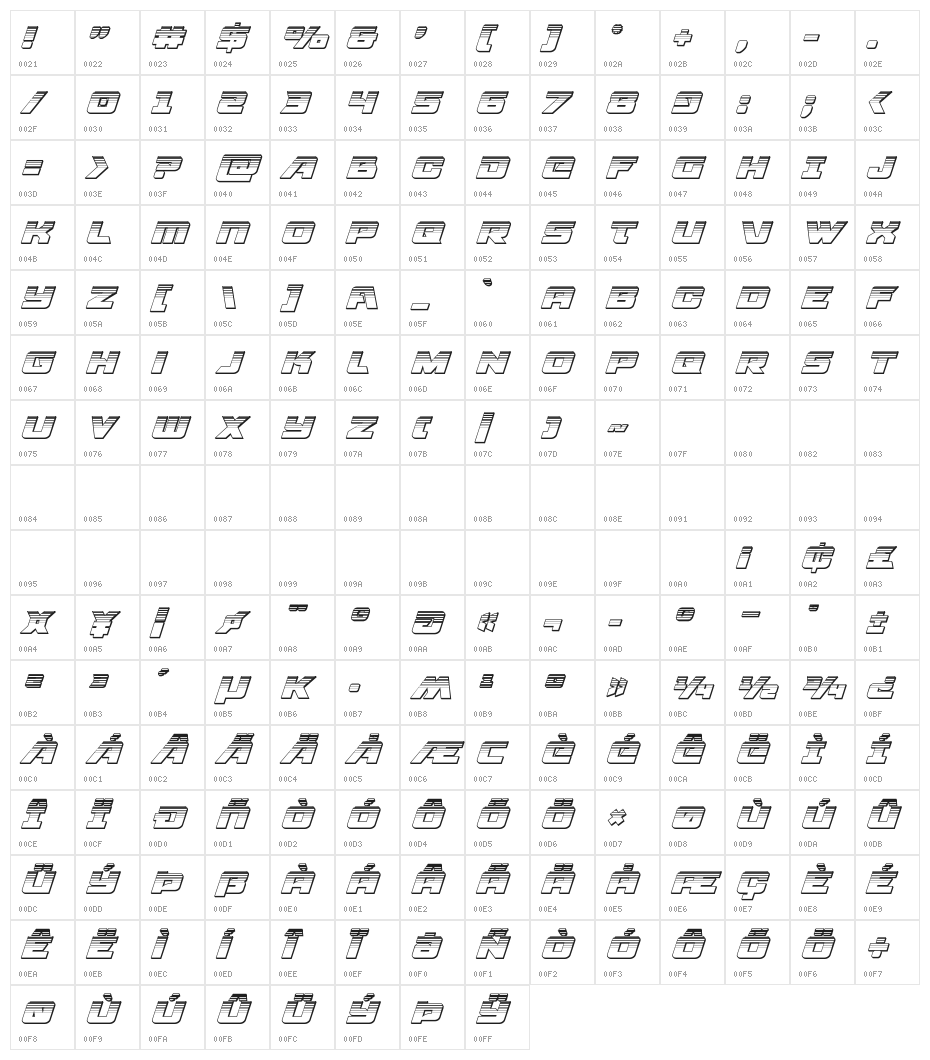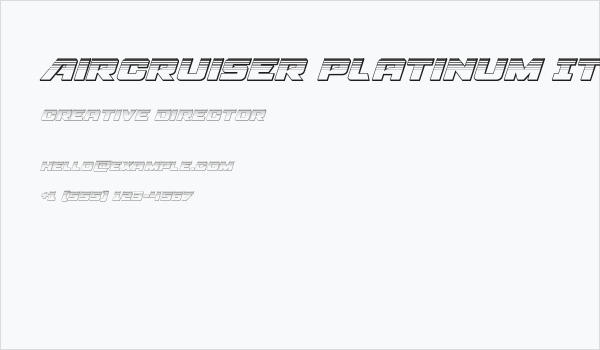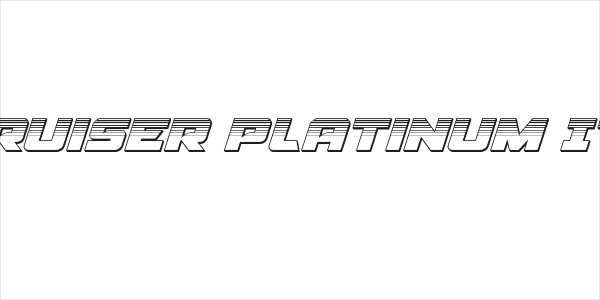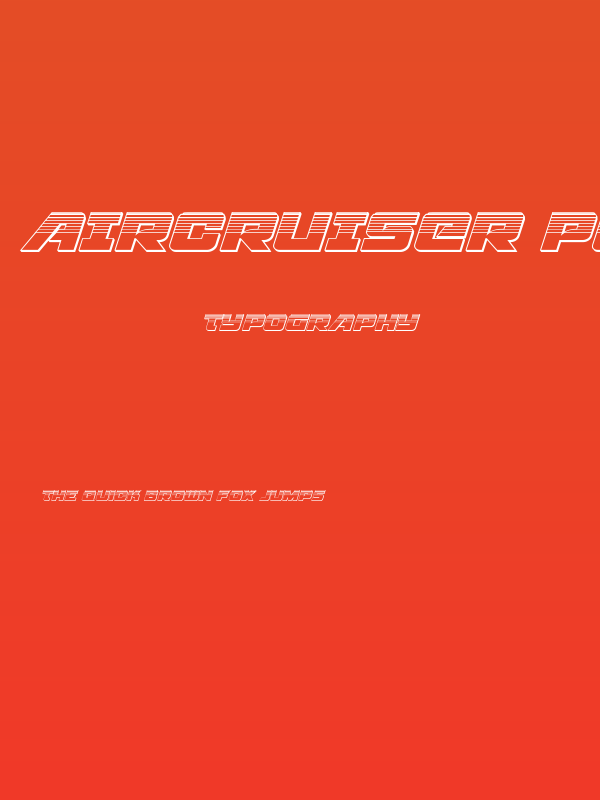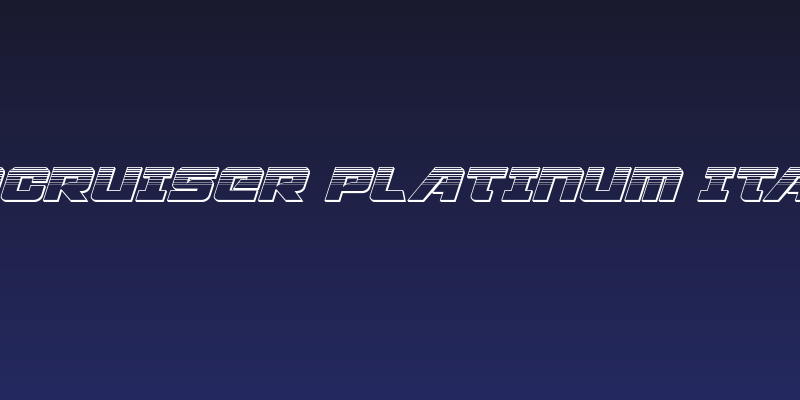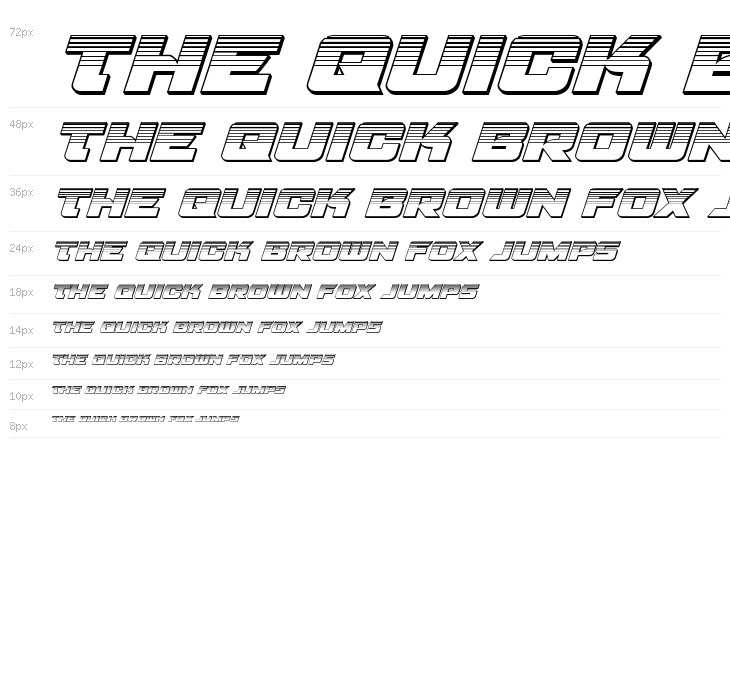
Aircruiser Platinum Italic Font
Aircruiser Platinum Italic Description
This font features a bold, futuristic design with a distinct italic slant. Each character is outlined with multiple lines, creating a layered effect that adds depth and dimension. The geometric shapes and sharp angles give it a modern, tech-inspired look, making it ideal for projects that require a dynamic and eye-catching style. The uppercase and lowercase letters maintain a consistent style, while the numbers and special characters are designed to match the overall aesthetic. The font's unique structure makes it stand out, perfect for creative and innovative designs.
| Proposed Projects | Ideal for technology branding, sci-fi posters, video game titles, and modern advertising. |